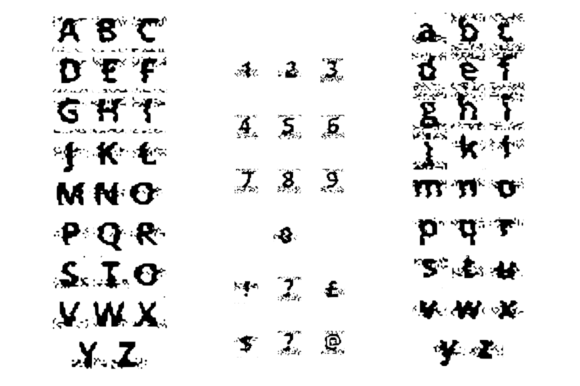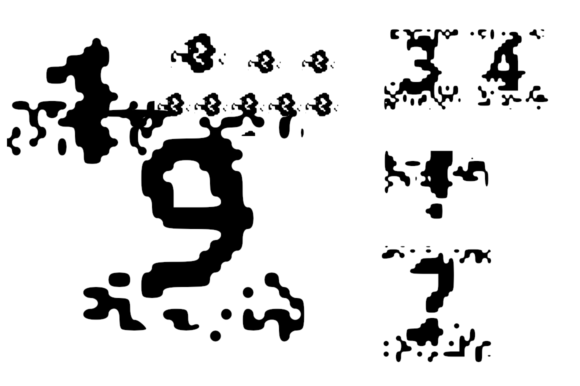
The Glitchy Font That’s Taking Over My Designs: A Deep Dive into Glitch Bits Font
I still remember the design project that led me to discover Glitch Bits Font. I was working on a futuristic-themed branding project for a tech startup, and I was struggling to find the perfect font that would capture the edgy, high-tech vibe they were looking for. That’s when I stumbled upon Glitch Bits, and it instantly became my go-to font. Its distorted, glitchy feel was exactly what I needed to bring the brand to life. In this article, I’ll share my experience with Glitch Bits Font, its features, and how to make the most of it in your designs.
An Honest Review of Glitch Bits Font
What I Love About Glitch Bits Font
- ✨ Unique and eye-catching design: Glitch Bits Font has a one-of-a-kind, distorted look that adds a touch of edginess to any design.
- ✅ Uppercase and lowercase versions: The font comes in both uppercase and lowercase versions, making it versatile for various design applications.
- ✅ Perfect for glitch art and tech-themed designs: The font’s glitchy feel makes it an ideal choice for designs that require a futuristic or tech-inspired look.
While Glitch Bits Font is an amazing addition to any design project, there are a few things to keep in mind:
- ⚠️ Legibility at small sizes: Due to its distorted nature, Glitch Bits Font may not be the best choice for body text or small font sizes.
- 🤔 Limited use cases: While the font is perfect for tech-themed designs, it may not be suitable for more traditional or formal design projects.
The Backstory Behind Glitch Bits Font
Glitch Bits Font was designed with the intention of capturing the essence of digital distortion and glitch art. The designer aimed to create a font that would reflect the imperfections and errors that occur in digital systems, resulting in a unique and eye-catching design.
Q: What is Glitch Bits Font?
A: Glitch Bits Font is a glitched, cool display typeface that comes in both uppercase and lowercase versions.